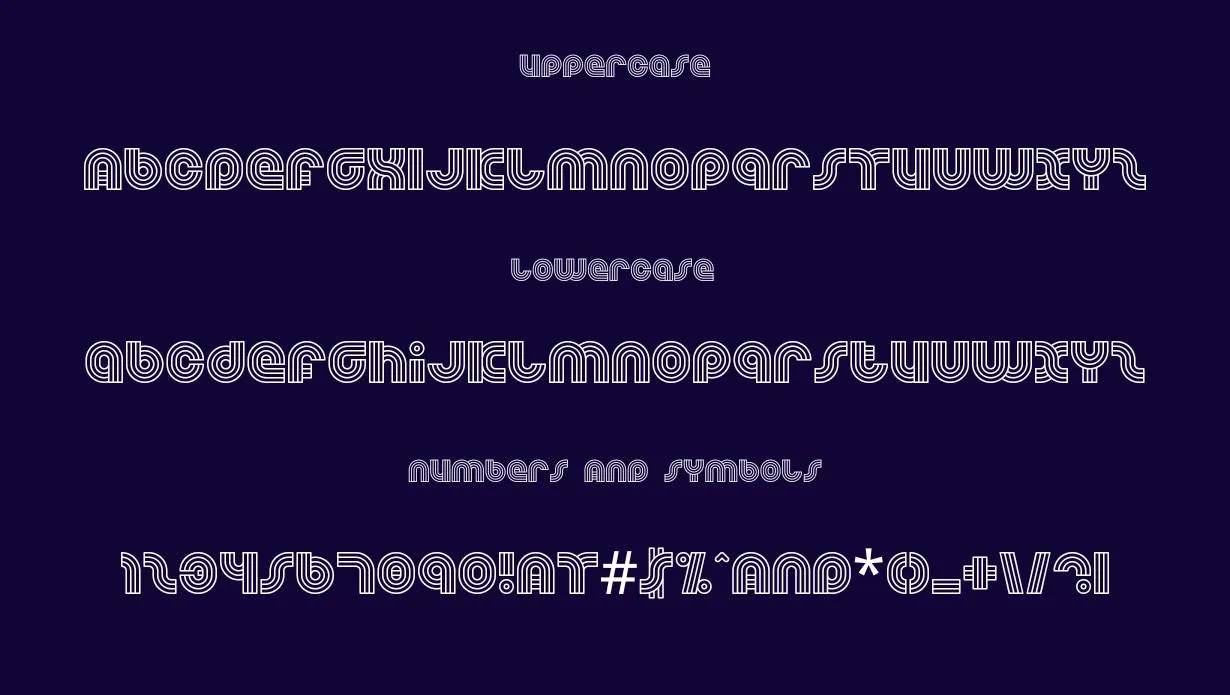
Dreamland font is the dreamy friend that adds a whimsical touch to your words. It’s like taking your text on a gentle daydream, making it perfect for fairy tale posters or cute greeting cards. The weight of Dreamland is light and airy, creating a sense of playfulness.
Its width is comfortably enchanting, allowing your words to dance across the page with a dreamlike charm. This font turns your words into a magical journey, adding a sprinkle of imagination that makes them feel light and charming.
| Name | Dreamland Font |
| Designer | Jim Parkinson |